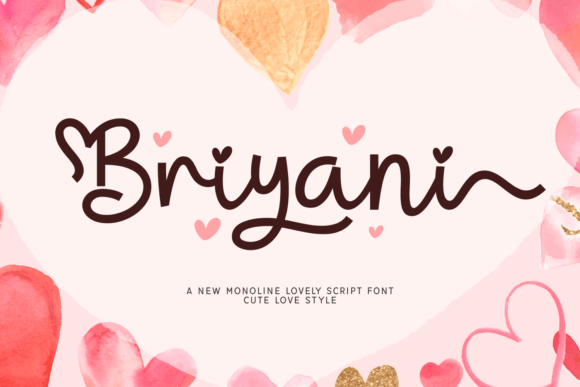
Briyani Font: The Perfect Script Font for Romantic Projects
Briyani is a beautiful monoline script font that exudes a sense of playfulness and charm. Its unique design features heart accents and smooth curves, making it an ideal choice for romantic projects such as love letters, wedding invitations, and Valentine’s Day designs. In this article, we will explore the features and benefits of the Briyani font and how it can add a touch of joy and love to your creative projects.
Key Features of Briyani Font
- Monoline Script Font: Briyani is a monoline script font, which means that it features smooth, connected letters with a consistent line width. This gives the font a elegant and sophisticated look.
- Heart Accents: One of the standout features of Briyani is its heart accents. These adorable touches add a playful and romantic feel to the font, making it perfect for projects that require a touch of whimsy.
- Smooth Curves: The smooth curves of Briyani font give it a fluid and organic feel. This makes it easy to read and perfect for use in a variety of design projects.
- Cute and Playful Style: Briyani font has a cute and playful style that adds a joyful touch to every creation. Its endearing quality makes it perfect for use in romantic projects such as love letters and wedding invitations.
Ideas for Using Briyani Font
Briyani font is a versatile font that can be used in a variety of design projects. Here are some ideas to get you started:
- Love Letters: Add a touch of romance to your love letters with Briyani font. Its playful and charming design makes it perfect for expressing your feelings.
- Wedding Invitations: Make your wedding invitations stand out with Briyani font. Its elegant and sophisticated design makes it perfect for formal events.
- Valentine’s Day Designs: Create beautiful Valentine’s Day designs with Briyani font. Its heart accents and playful style make it perfect for this romantic holiday.
- Greeting Cards: Use Briyani font to create beautiful greeting cards for any occasion. Its cute and playful style makes it perfect for birthdays, anniversaries, and more.
- Social Media Graphics: Add a touch of personality to your social media graphics with Briyani font. Its playful and charming design makes it perfect for creating engaging and shareable content.
- Product Packaging: Use Briyani font to add a touch of elegance and sophistication to your product packaging. Its versatile design makes it perfect for a variety of products.
Benefits of Using Briyani Font
Briyani font offers a range of benefits that make it a great choice for designers and crafters. Here are some of the advantages of using Briyani font:
- Unique and Playful Design: Briyani font has a unique and playful design that sets it apart from other fonts. Its heart accents and smooth curves make it perfect for romantic projects.
- Versatile: Briyani font is a versatile font that can be used in a variety of design projects. Its elegant and sophisticated design makes it perfect for formal events, while its playful style makes it perfect for more casual projects.
- Easy to Read: Briyani font is easy to read, making it perfect for use in a variety of design projects. Its smooth curves and consistent line width make it easy on the eyes.
- Perfect for Romantic Projects: Briyani font is perfect for romantic projects such as love letters, wedding invitations, and Valentine’s Day designs. Its playful and charming design makes it perfect for expressing your feelings.
Tips and Tricks for Using Briyani Font
Here are some tips and tricks for using Briyani font in your design projects:
- Use it with Other Fonts: Briyani font pairs well with other fonts, especially sans-serif fonts. Try using it with a bold font to create a striking contrast.
- Experiment with Colors: Briyani font looks great in a variety of colors, especially pastel colors. Try experimenting with different colors to find the perfect combination for your project.
- Use it in Digital and Print Designs: Briyani font works well in both digital and print designs. Try using it in social media graphics, greeting cards, and product packaging.
- Add a Personal Touch: Briyani font is perfect for adding a personal touch to your design projects. Try using it to create personalized gifts, such as customized mugs and tote bags.
Briyani font is a beautiful monoline script font that is perfect for romantic projects. Its unique design features heart accents and smooth curves, making it ideal for love letters, wedding invitations, and Valentine’s Day designs. Its versatile design makes it perfect for use in a variety of design projects, including greeting cards, social media graphics, and product packaging. With its playful and charming design, Briyani font is sure to add a touch of joy and love to your creative projects.